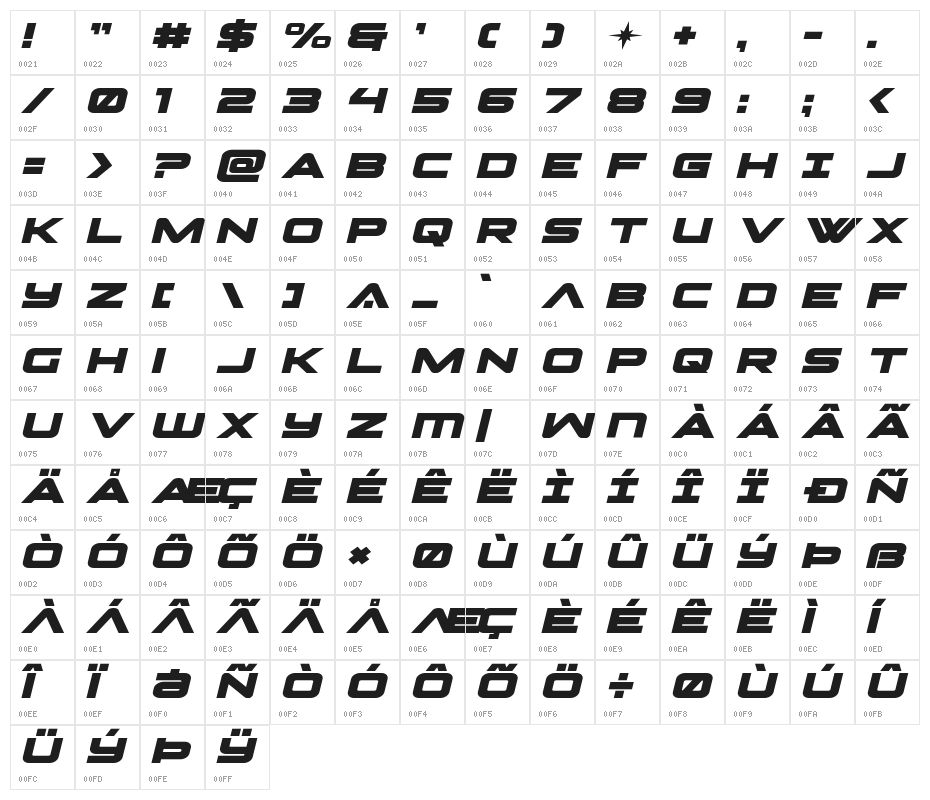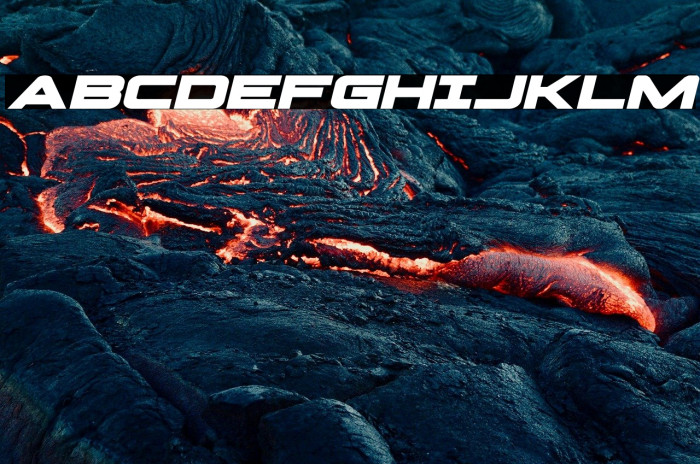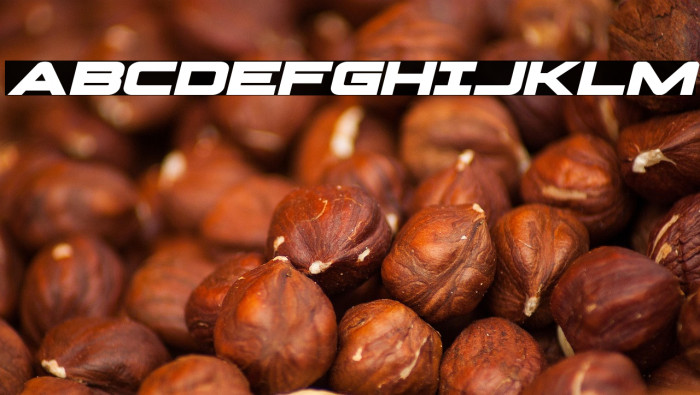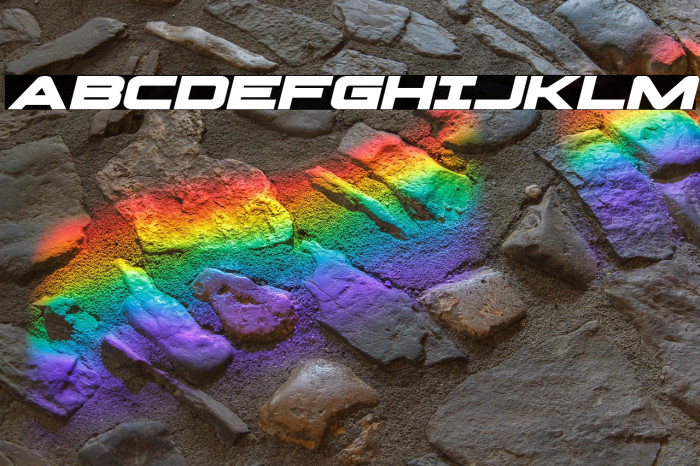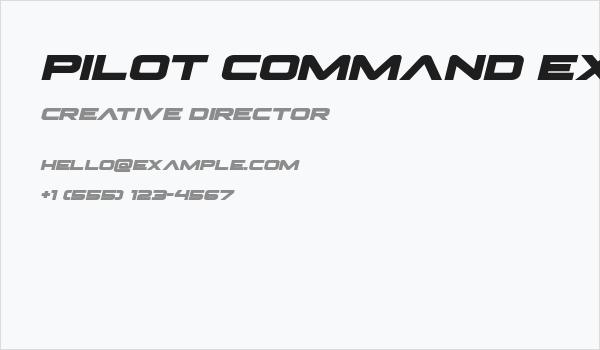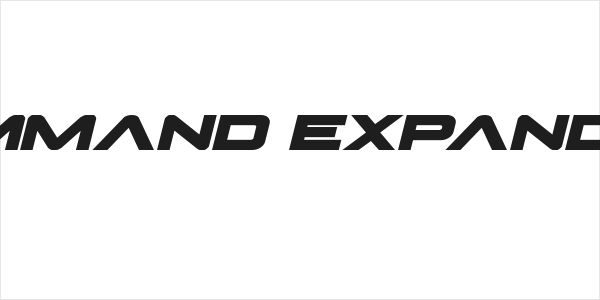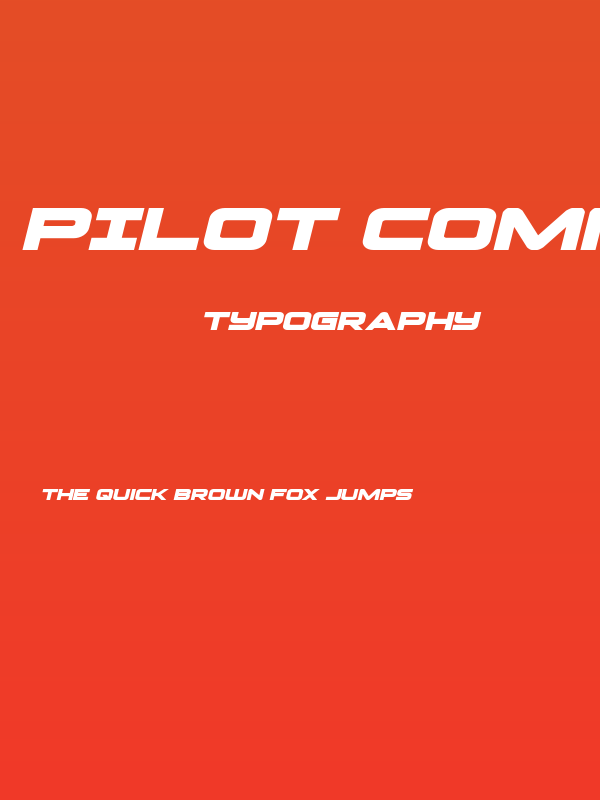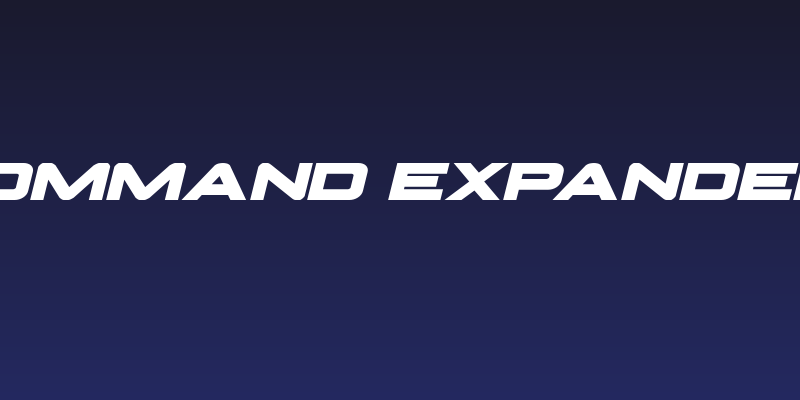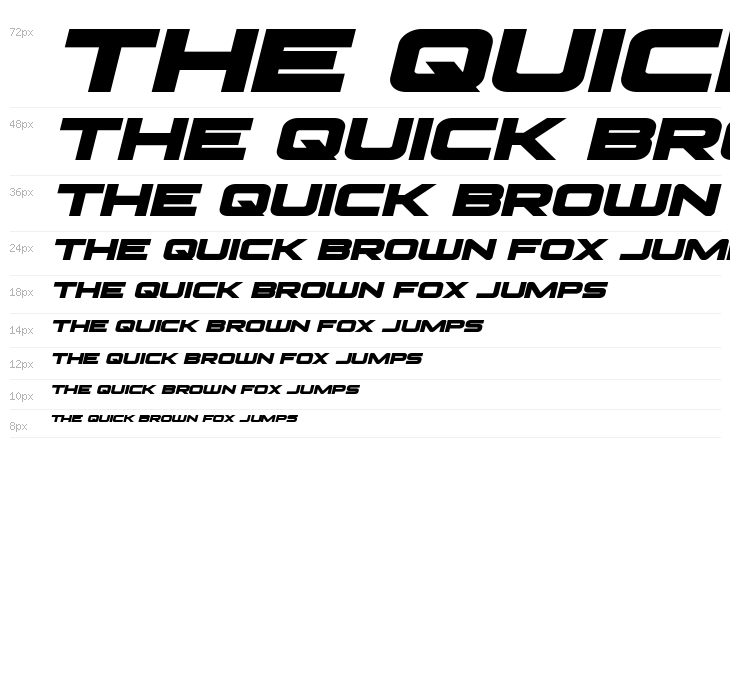
Pilot Command Expanded Italic Font
Pilot Command Expanded Italic Description
This font features a bold, italicized style with an expanded width, giving it a strong and dynamic appearance. The characters are sharply angled, contributing to a sense of motion and speed. The uppercase letters are particularly striking, with a futuristic and aerodynamic design that suggests modernity and innovation. The numbers and special characters maintain this cohesive style, ensuring consistency across all text elements. The overall look is sleek and professional, making it suitable for projects that require a bold statement.
| Width | Expanded |
| Use Case | Logos, Headlines |
| Proposed Projects | Ideal for use in branding, sports team logos, automotive designs, and technology-related projects. |